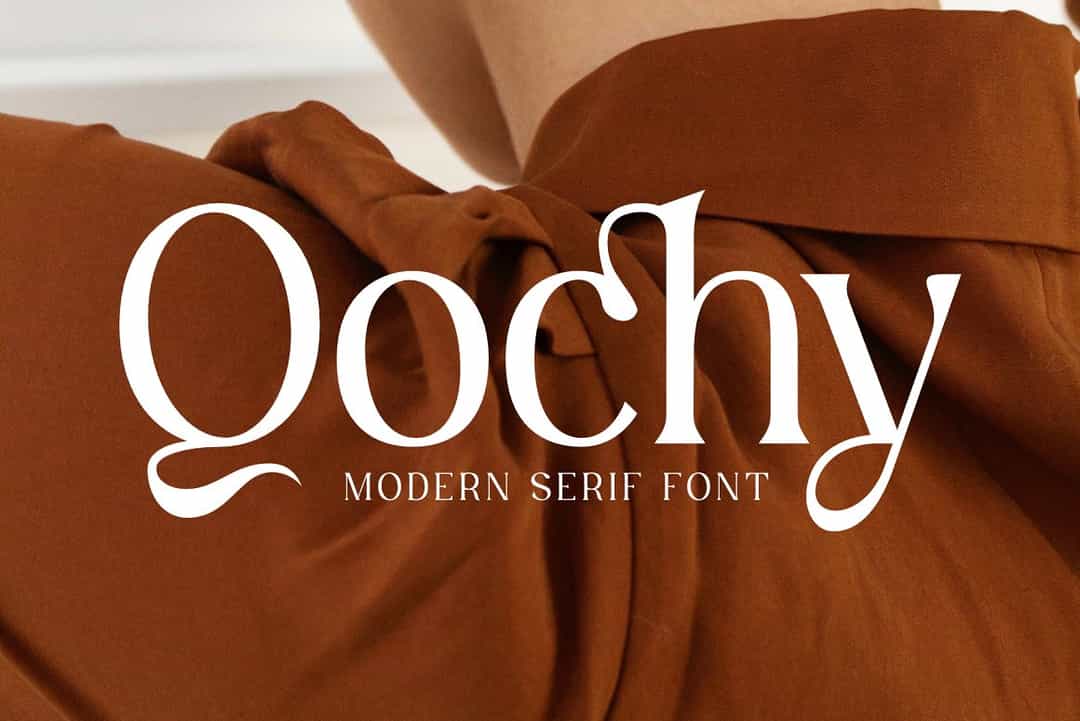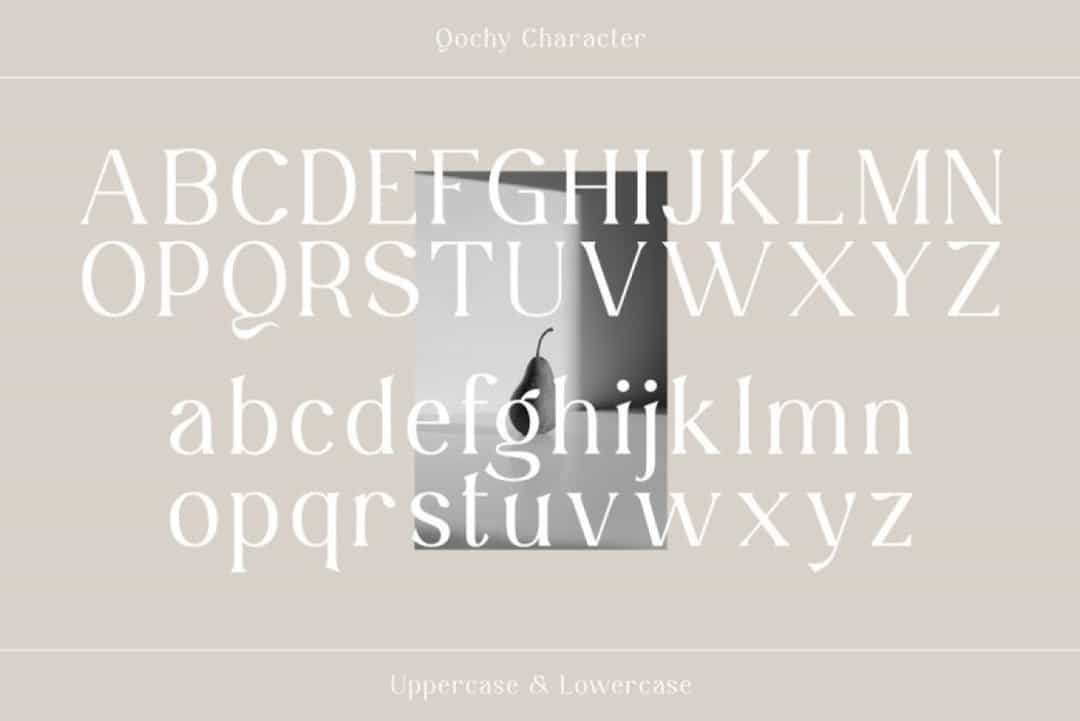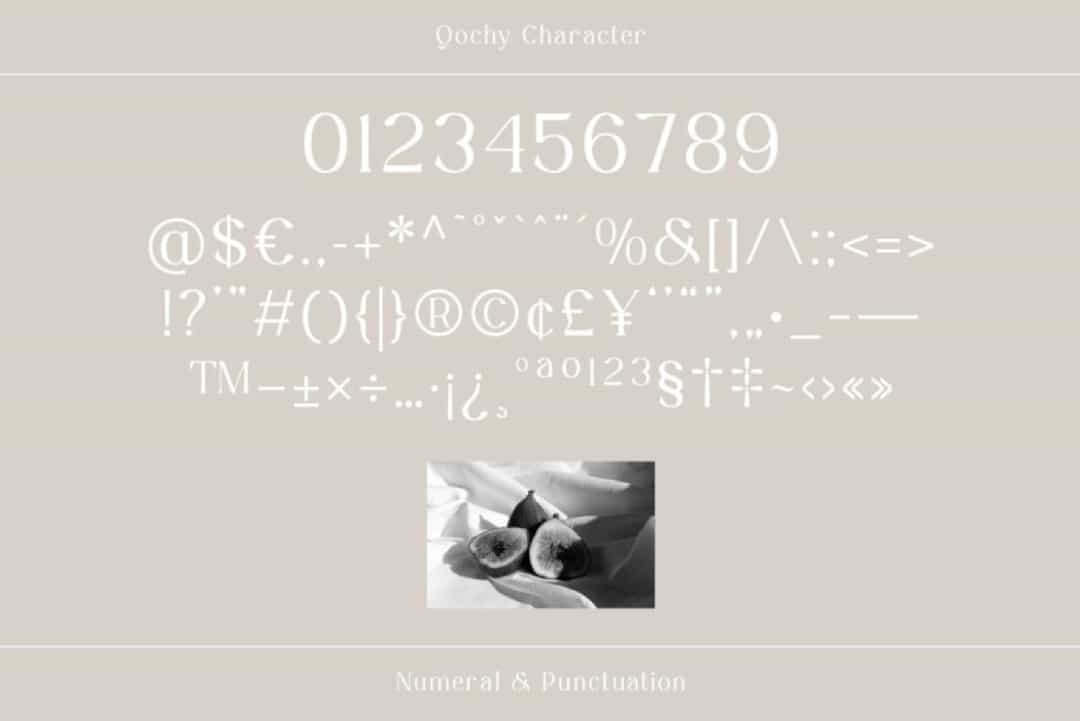
Introduce Qochy Serif Font, elegant yet fast fonts designed to assist designers with their design tasks. Ideal for branding, logo design, magazine covers, landing pages and Instagram posts among many other uses, Qochy is perfect for fast design projects such as branding.